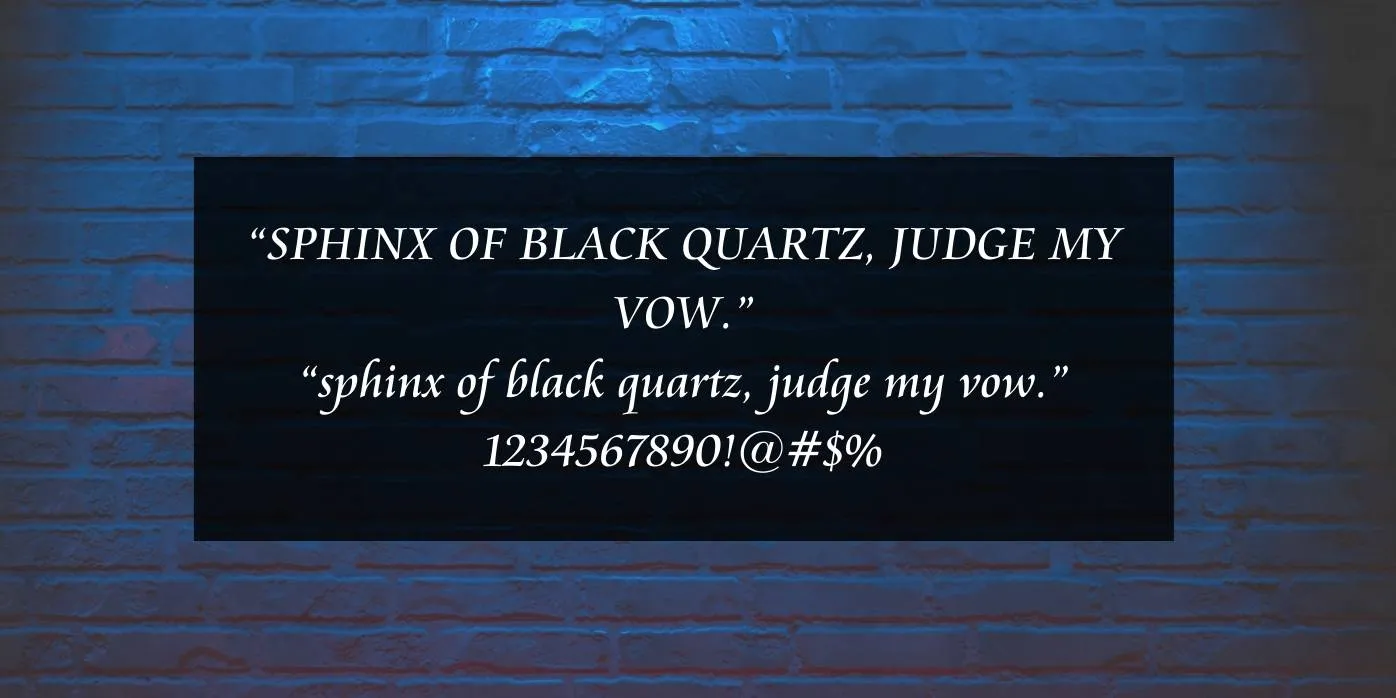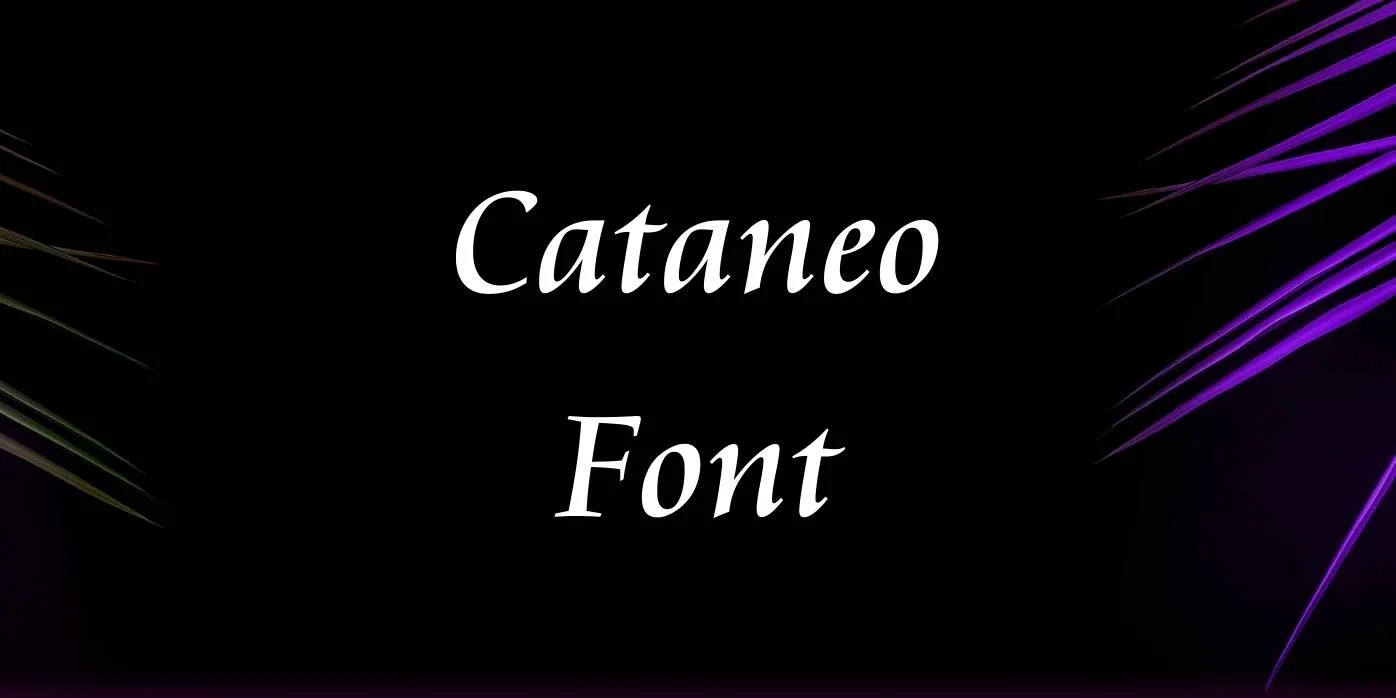
Cataneo Font
Today, we present a modern and unique typeface named Cataneo Font. This stunning typeface was designed by Paul Renner. This typeface was released in 1927. It belongs to the serif font family.
It includes different famous characters such as Bold, Book, Light, and others. This staggering typeface is best for headlines and short paragraphs. It will give an amazing look to your design. This stunning font is perfect for any creative project.
It can be used for web design, branding, and more. This font is also great for print projects. You can also use its similar cambo font which is suitable for many designs. This tremendous typeface is very famous because of its support for many languages.